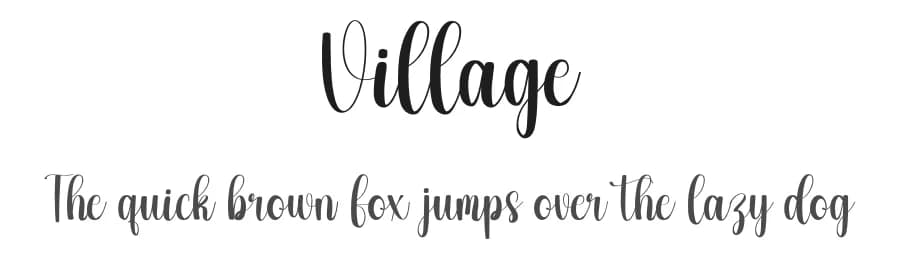
About Village Font
This font retains a classy calligraphic influence while feeling contemporary and fresh. This versatility will attract a wide range of creative ideas, from letterheads and titles to stationery.
Village Font is a script font that shines as a display or heading face. Pair it with a clean sans-serif or serif font for body text β the contrast creates a clear hierarchy while the two styles stay balanced and easy to read.
Village Font